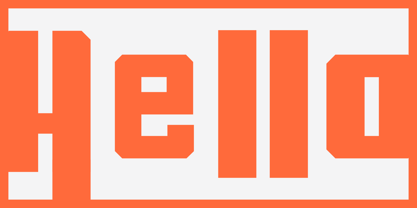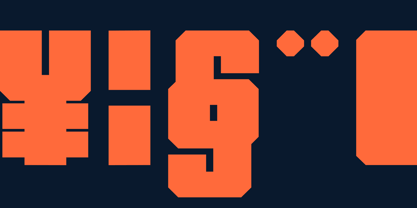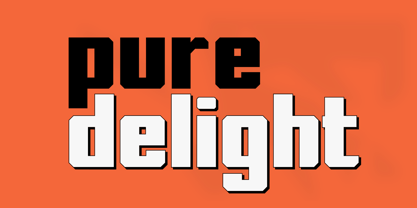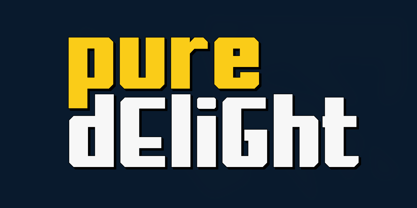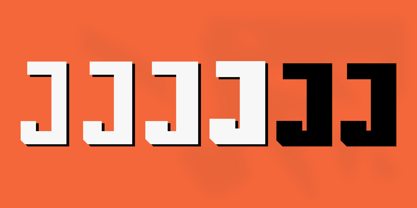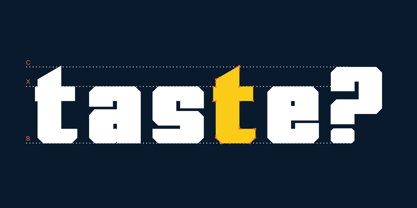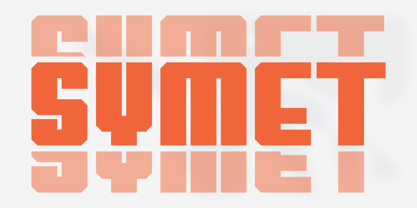
Symet
Symet is a bold geometric display typeface built on symmetry and strength. Its sharp cuts and solid strokes make it perfect for eye-catching headlines, logos, and experimental layouts. Turn your words into a striking visual statement with Symet.
Features:
• All letterforms designed for impactful display use
• Geometric construction with symmetrical proportions
• Sharp, angular cuts balanced by wide, solid strokes
• A bold weight that ensures maximum visibility
• Multilingual support for extended versatility
Perfect for headlines, logos, and experimental layouts, Symet transforms ordinary text into a striking visual statement. This typeface isn’t just about reading—it’s about being seen.